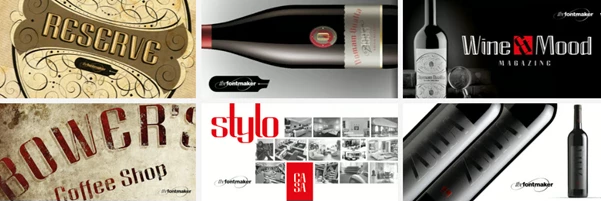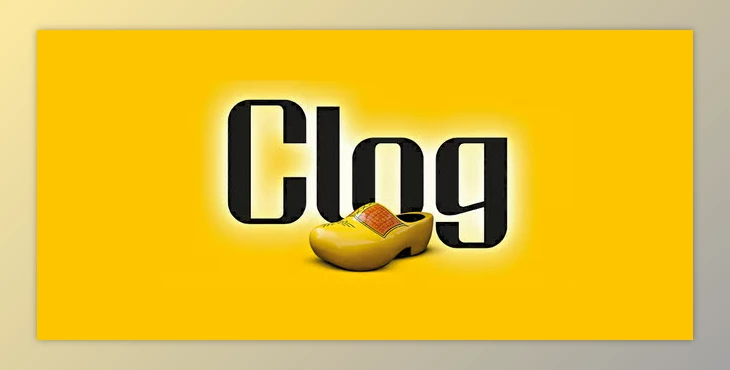
The FM Clog Font Family is everything you need to add unique touches and elegant additions to your next design project, ensuring they won't go overlooked. The FM Clog Font Family boasts four outline styles to suit your graphic: Normal, Open Face, Shadowed, and Engraved. From wine labels to packaging and magazine titles, the FM Clog Font Family is as versatile as it is stylistic.
- Normal: an outline that's perfectly normal and applicable to whatever you'd like;
- Open face: an alternative version for an almost lace-like appeal.
- Shadowed: an artistic approach to adding shadow behind the letters to make them pop.
- Engraved: makes the letters feel textured in an appealing, ornate way
Use the Open Face and Shadowed styles against one another to create fun new twists on already established graphics. This font family will take your designs to the next level and ensure that they look as good as possible.